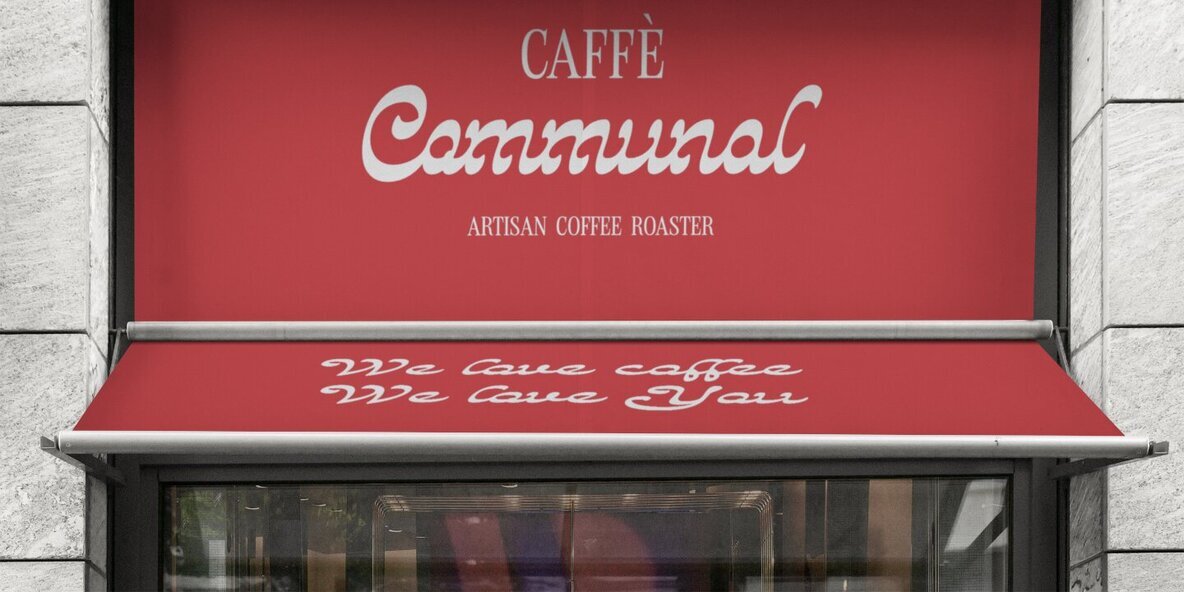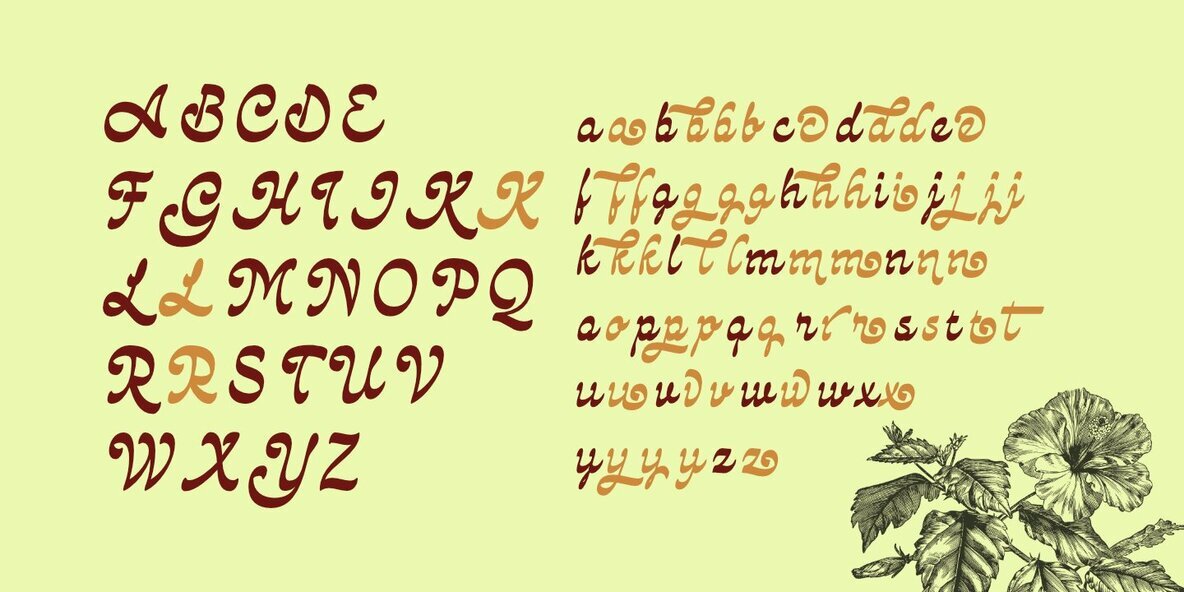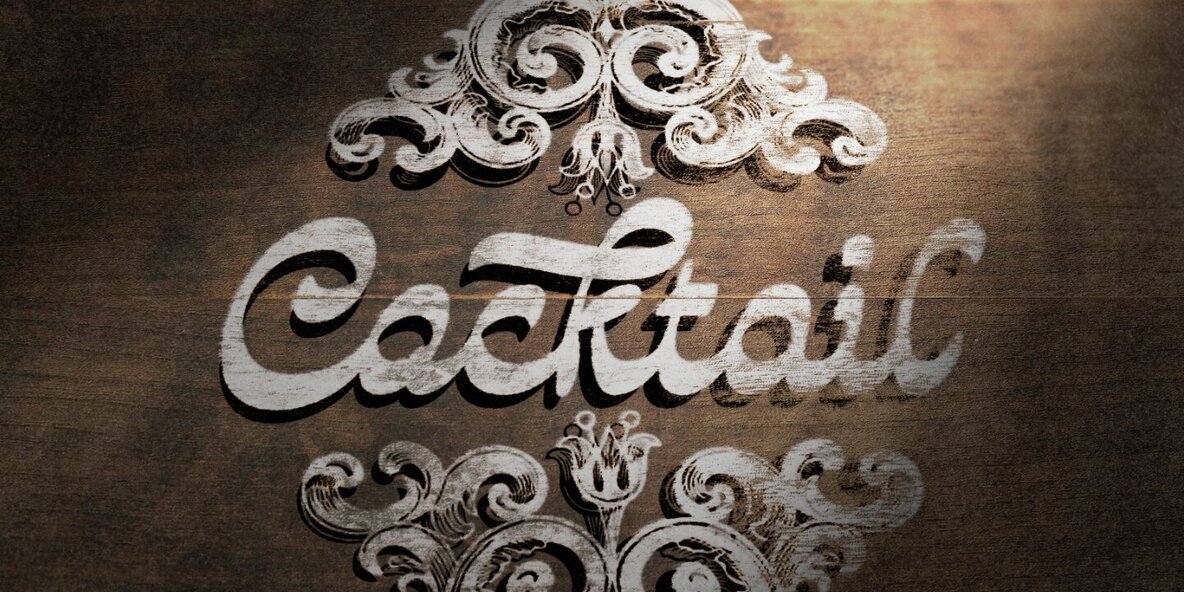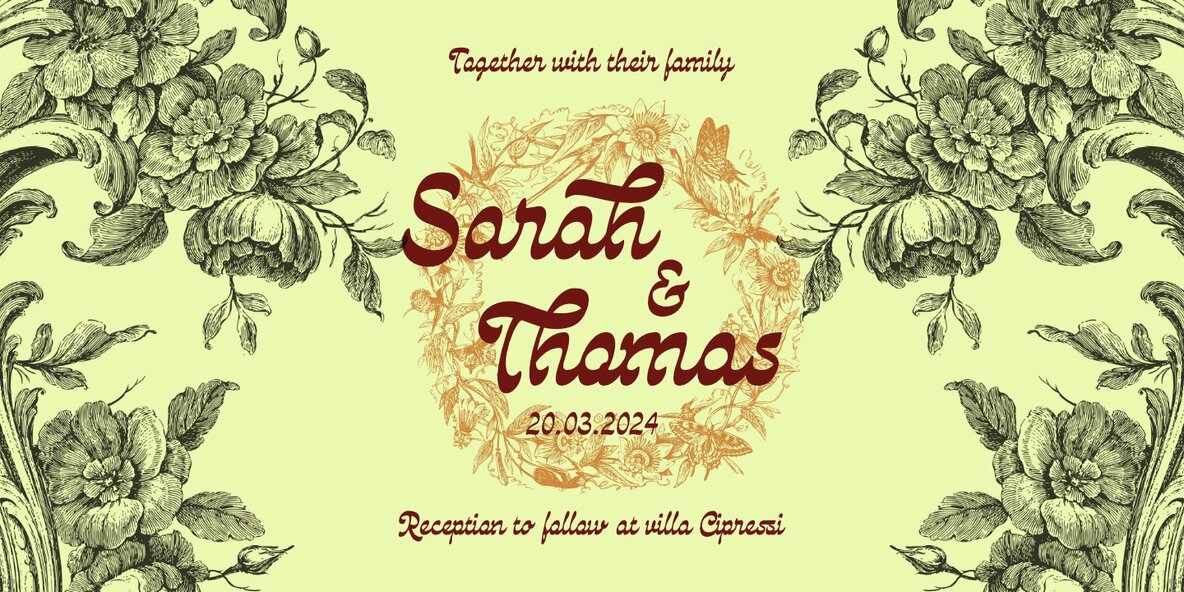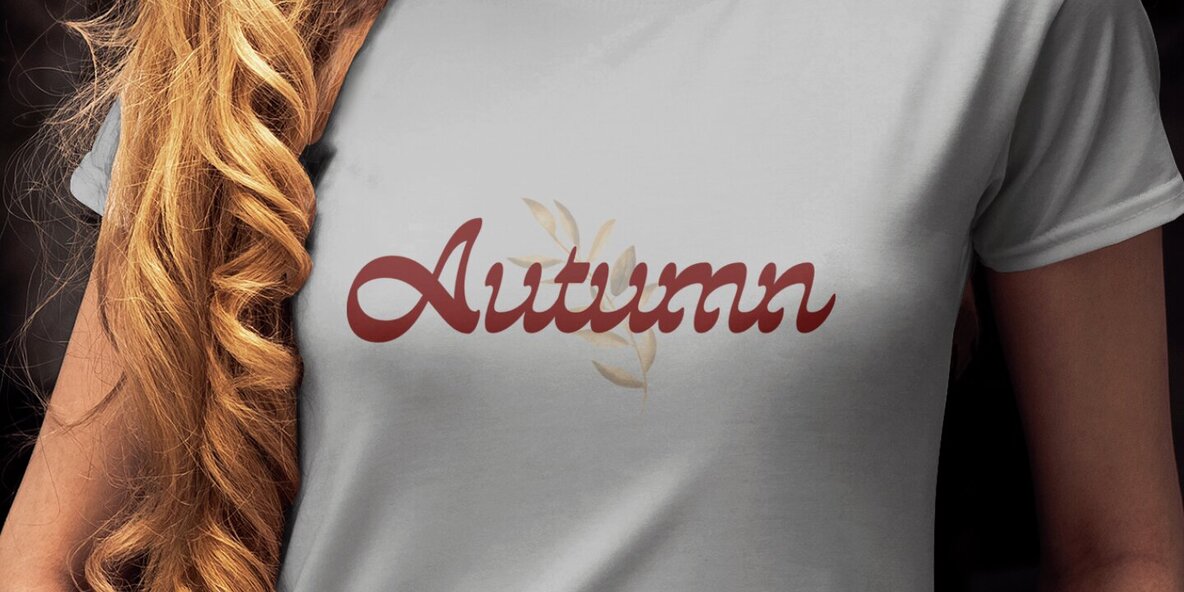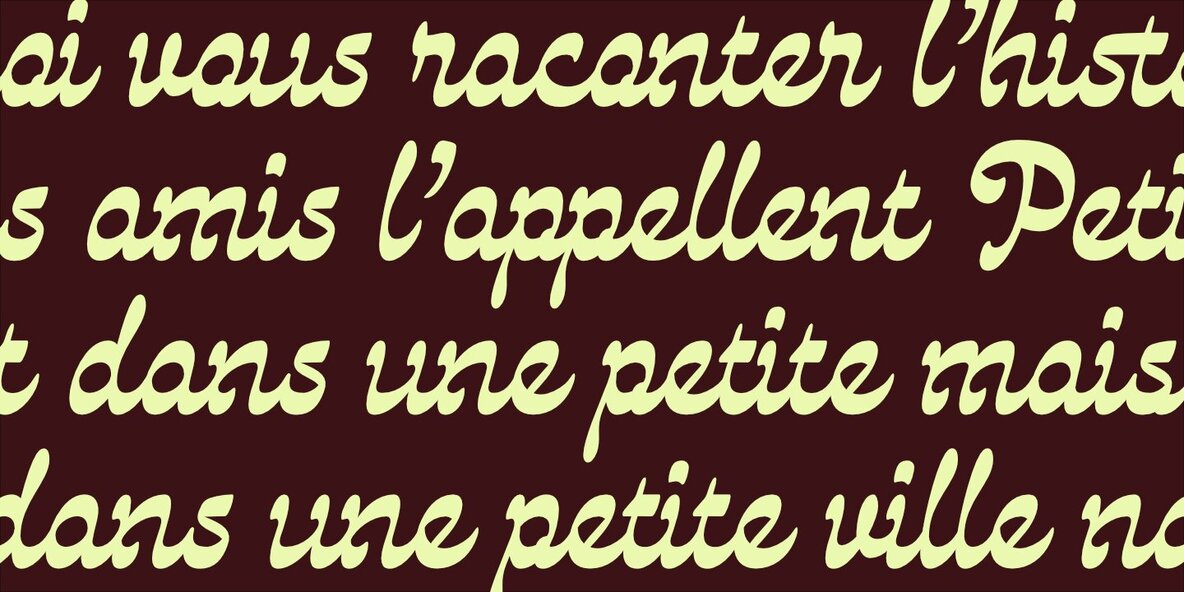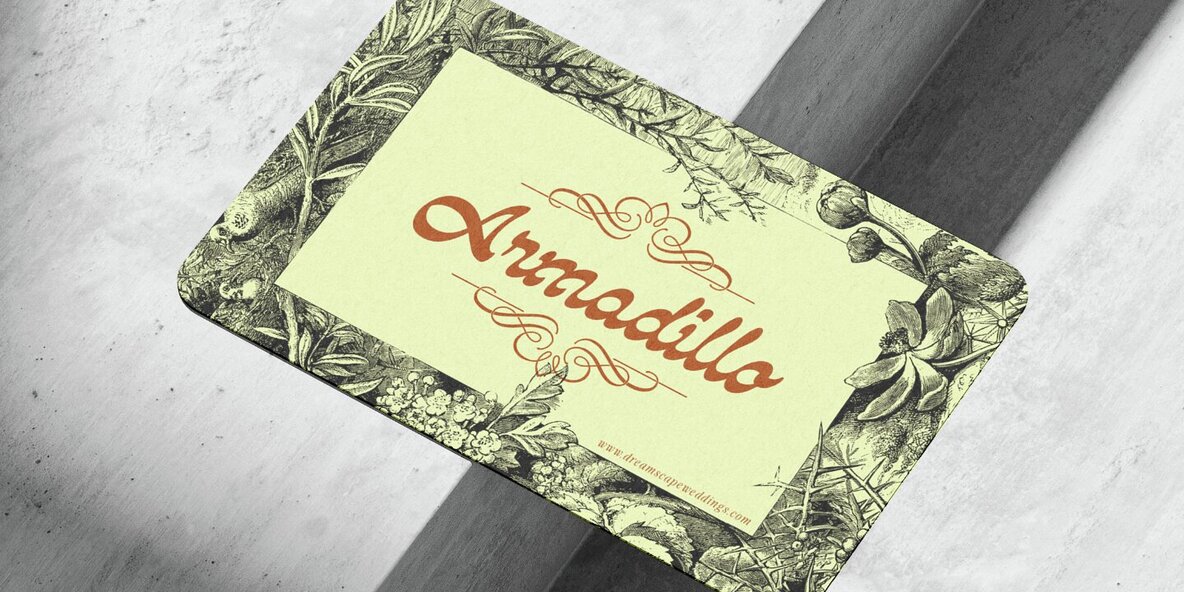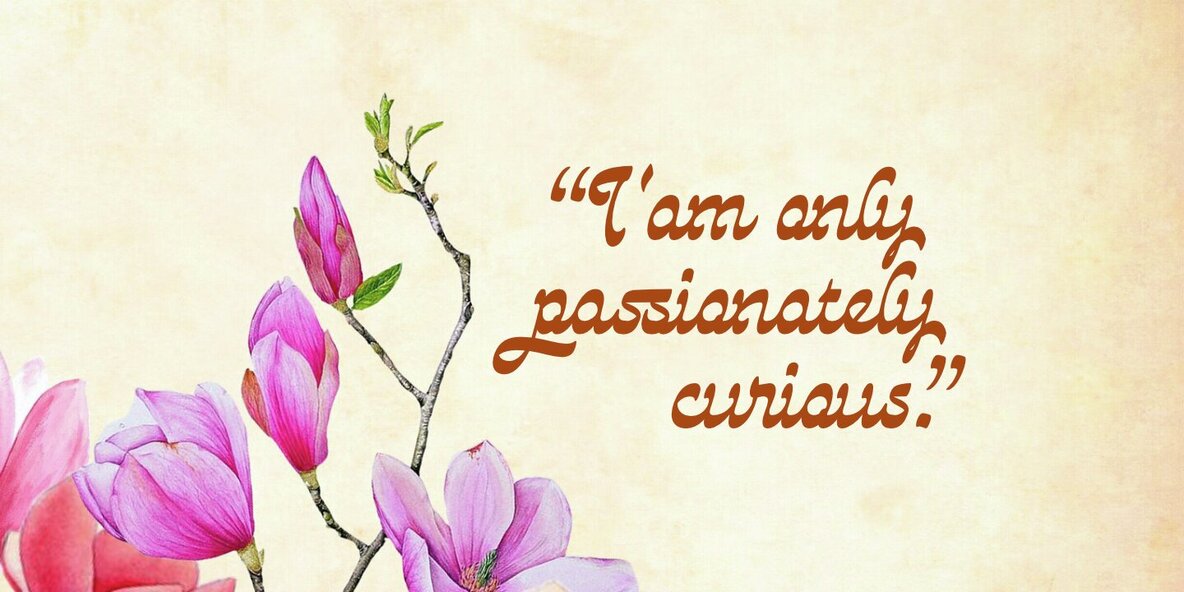
Amberine Font
Amberine Italic
Amberine is a captivating reverse contrast script font that defies convention with its unique and striking design. The thick, bold lines flow gracefully, creating a sense of dynamism and movement, while the delicate, thin strokes provide an elegant contrast. This font evokes a sense of drama and sophistication, making it perfect for titles, branding, invitations, and any design where you want to make a bold statement.